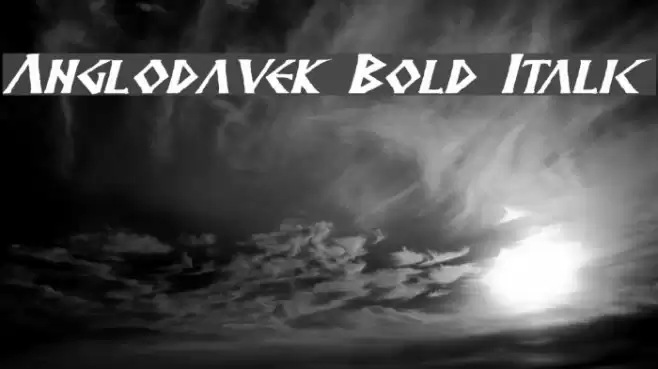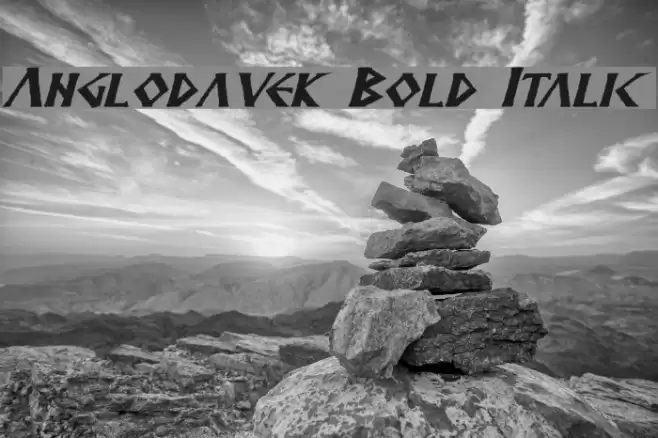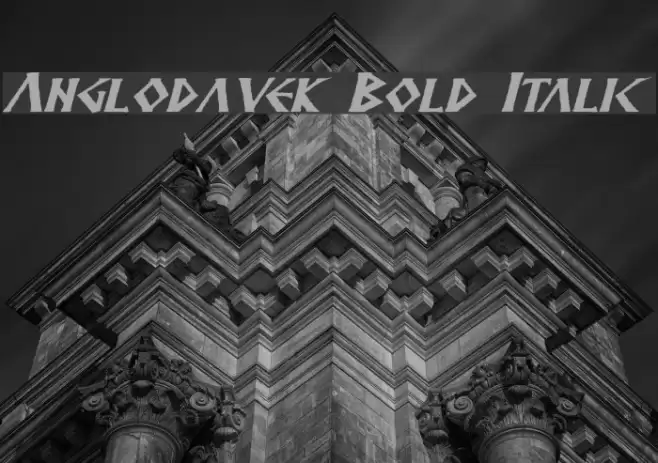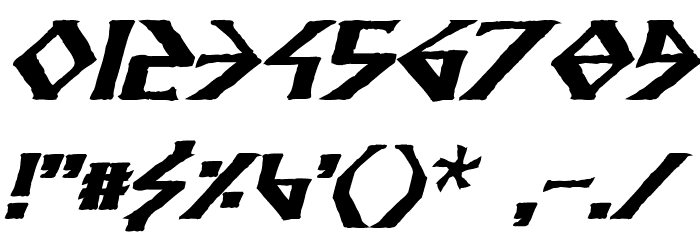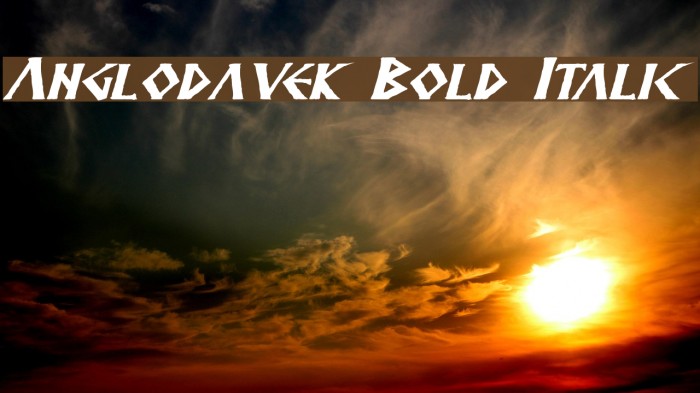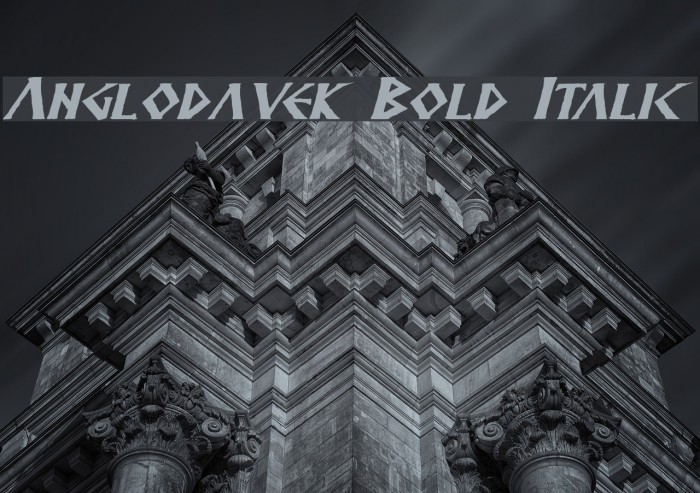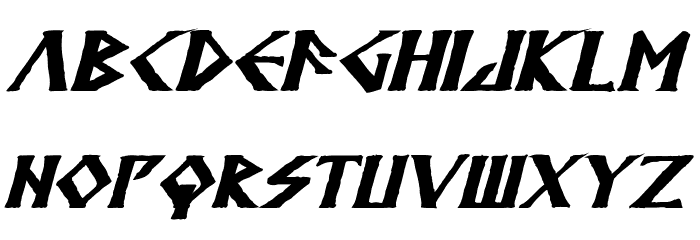
Anglodavek Bold Italic Font
Anglodavek Bold Italic Description
This font features a bold and italicized style with a distinct angular and geometric design. The characters are sharply defined, with strong diagonal lines and pointed edges that create a dynamic and aggressive appearance. The uppercase and lowercase letters maintain a consistent style, with the lowercase slightly smaller but equally bold. Numbers and special characters follow the same angular theme, ensuring uniformity across all glyphs. The overall look is modern and edgy, making it suitable for projects that require a strong visual impact.
A bold, italicized font with angular, geometric characters and a modern, edgy style from Uncategorized fonts.